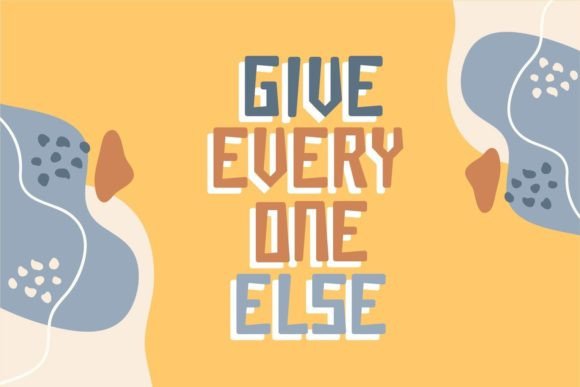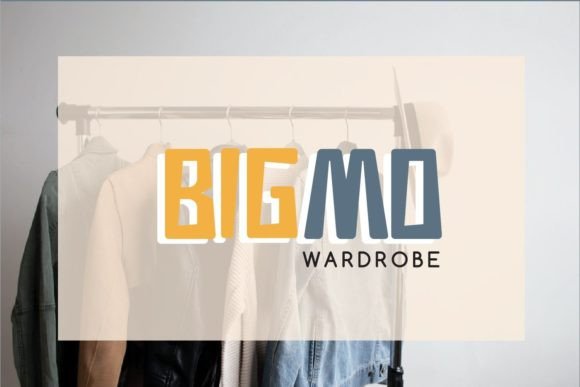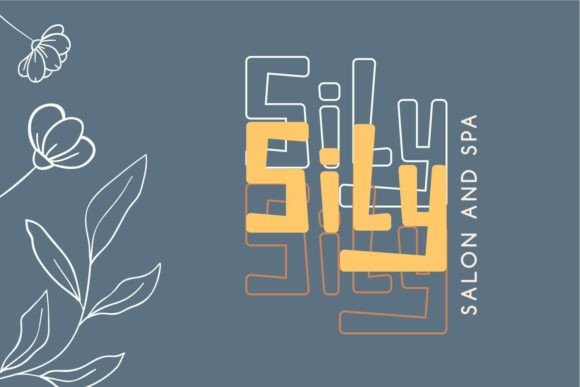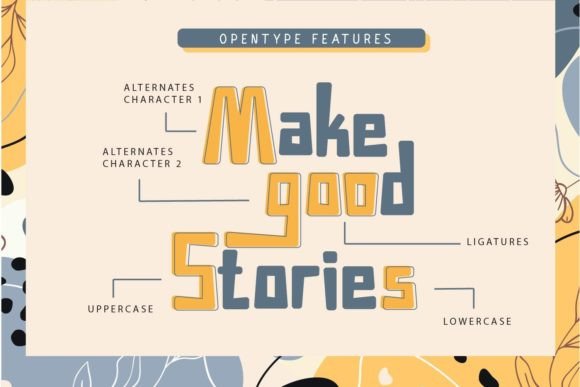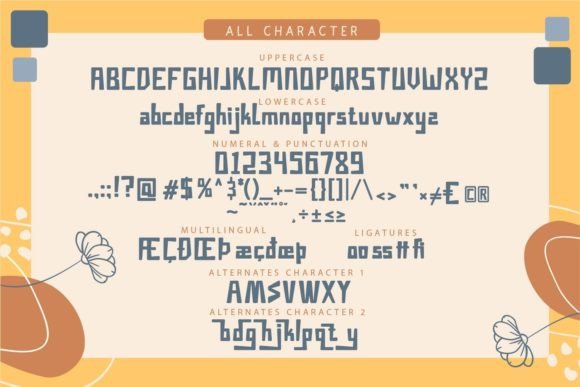
Introduction to Shenia Font
As designers, we’ve all been there – staring at a blank page, struggling to find the perfect font to bring our creative project to life. But what if you could tap into a font that’s not only adorable and quirky but also bold and versatile? Enter Shenia Font, a game-changing design resource that’s about to revolutionize your creative process.
Imagine being able to combine quirky characters to create one-of-a-kind looks that perfectly capture the essence of your brand or project. With Shenia Font, the possibilities are endless, and the fun is just beginning. This high-quality font is PUA encoded, making it effortless to access its amazing glyphs and ligatures, and it’s available for free download – what more could you ask for?
Key Features of Shenia Font
- High-quality design with transparent background for a seamless creative project experience.
- Features a unique and elegant design, making it an ideal choice for creative projects that require a touch of sophistication.
- Includes a comprehensive character set, covering a wide range of languages, making it suitable for international creative projects.
- Offers high-resolution support, ensuring that the font remains crisp and clear even at large sizes.
- Perfect for use in logos, branding, and other design elements where a high-quality, elegant font is required.
Honest Review: Shenia Font
As a designer, I’m always on the lookout for high-quality design resources to elevate my creative projects. I recently had the chance to try out the Shenia Font, and I’m excited to share my honest review.
Here are some things that work well about the Shenia Font:
- ✨ High-quality design: The Shenia Font is beautifully crafted, with a sleek and modern aesthetic that’s perfect for a variety of creative projects.
- ✨ Transparent background: The font’s transparent background makes it easy to layer over other design elements and create a cohesive look.
- ✨ Versatile: The Shenia Font is suitable for a wide range of design applications, from logos and branding to digital products and print materials.
- ⚠️ Limited font styles: The Shenia Font only comes in a few different styles, which may limit its versatility for some designers.
Overall, I’m impressed with the Shenia Font. While it may not be perfect, its high-quality design and versatility make it a valuable addition to any designer’s toolkit. If you’re looking for a reliable font to elevate your creative projects, I’d definitely recommend giving the Shenia Font a try – especially if you’re willing to pay for a high-quality design resource.
Shenia Font
The Shenia Font is a versatile design resource ideal for various creative projects. It offers a high-quality, elegant style that can elevate your designs to the next level.
Getting the Most Out of It
To get the most out of the Shenia Font, use it with a transparent background to create a clean and minimalist design. Experiment with different font sizes and colors to find the perfect combination for your project.
The Shenia Font is ideal for:
- Brand logos and identity design